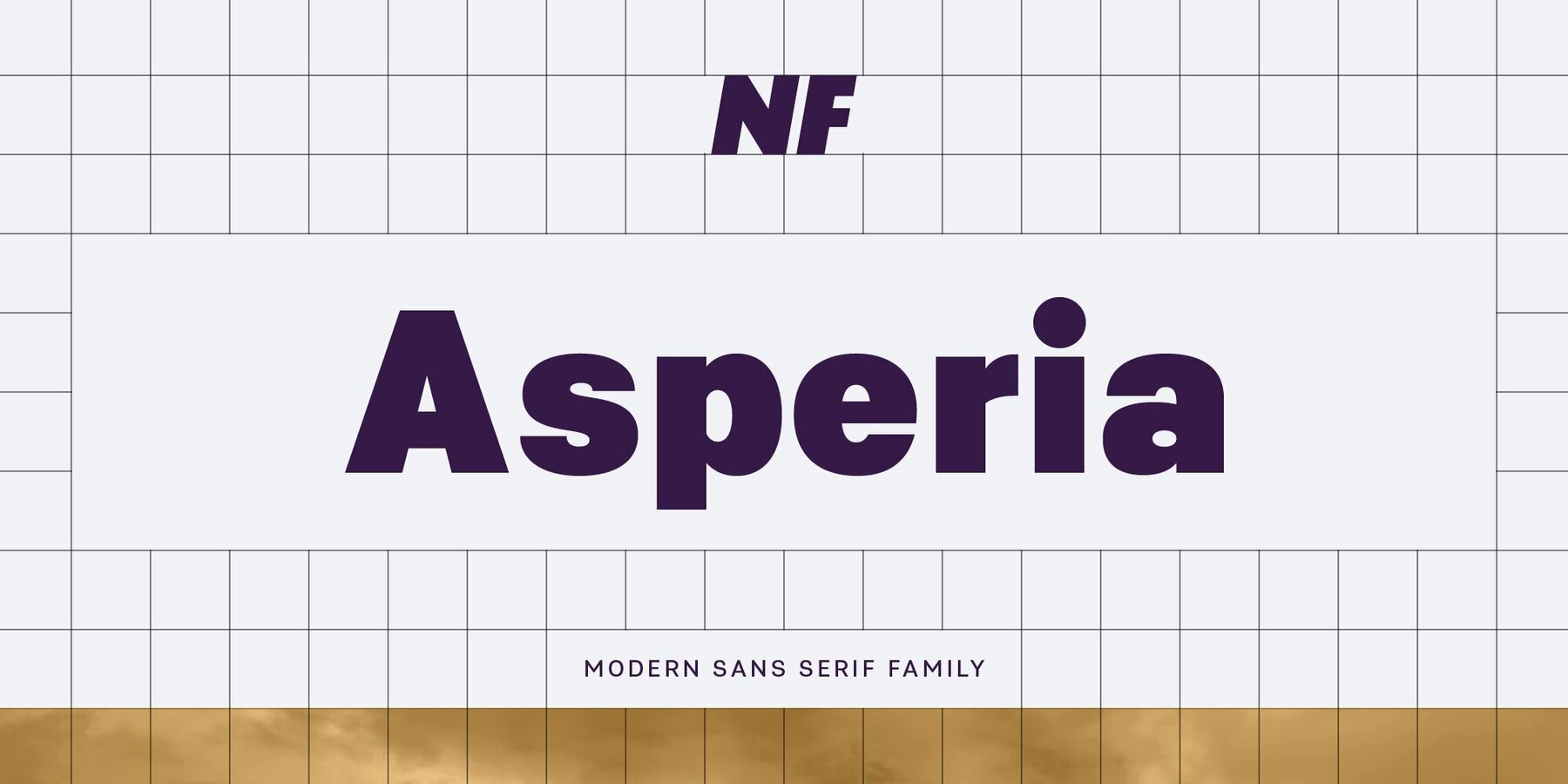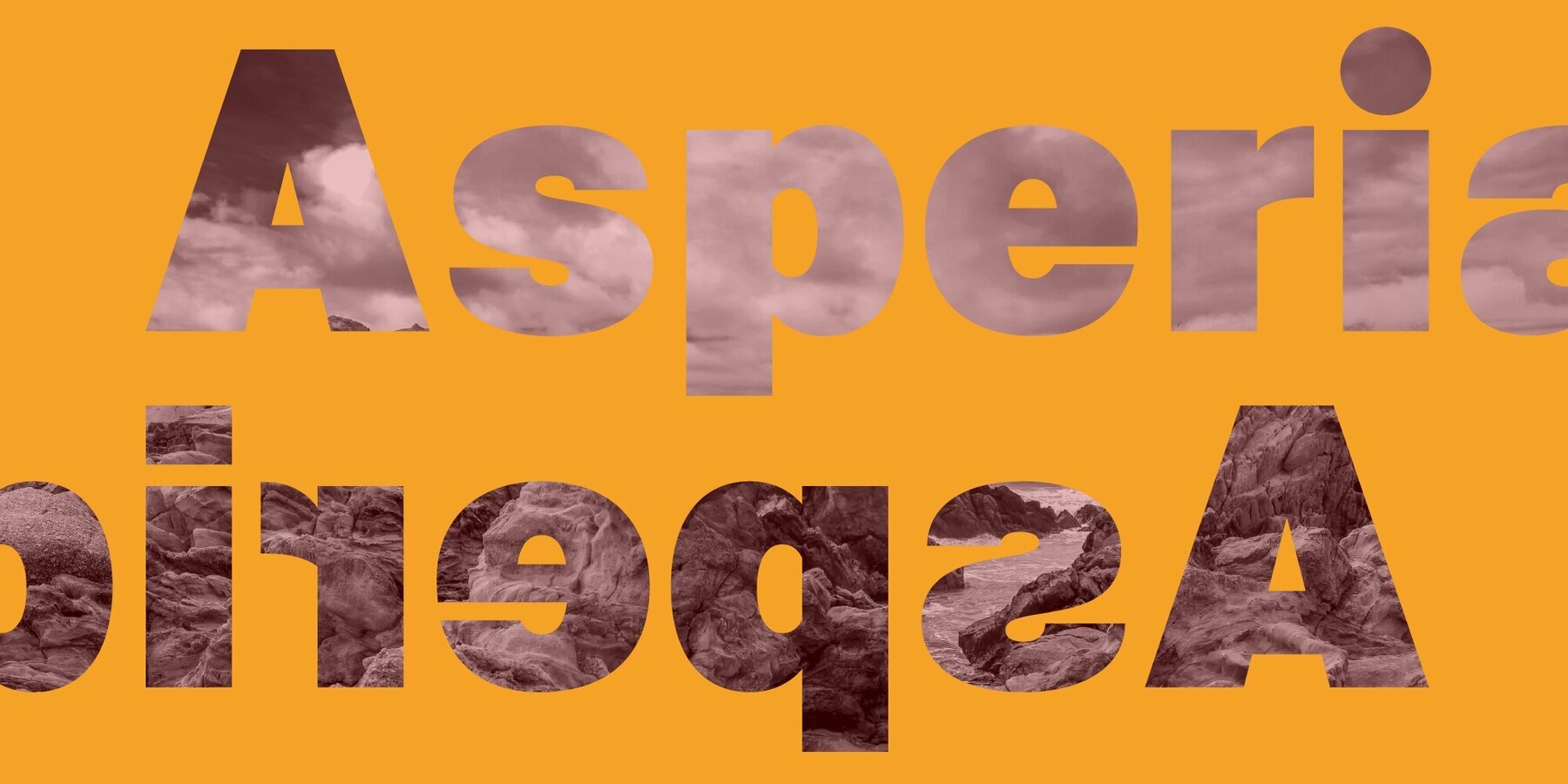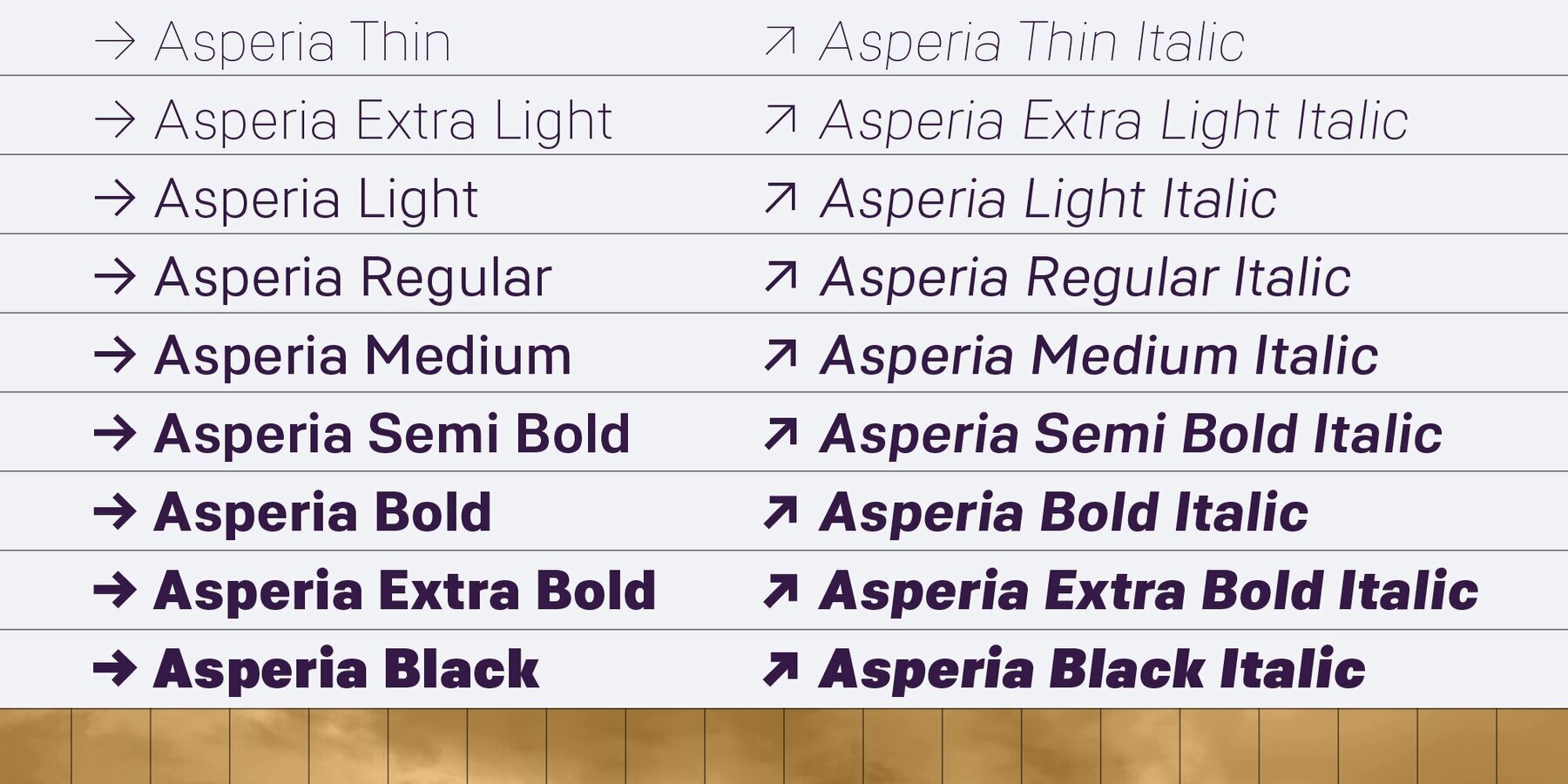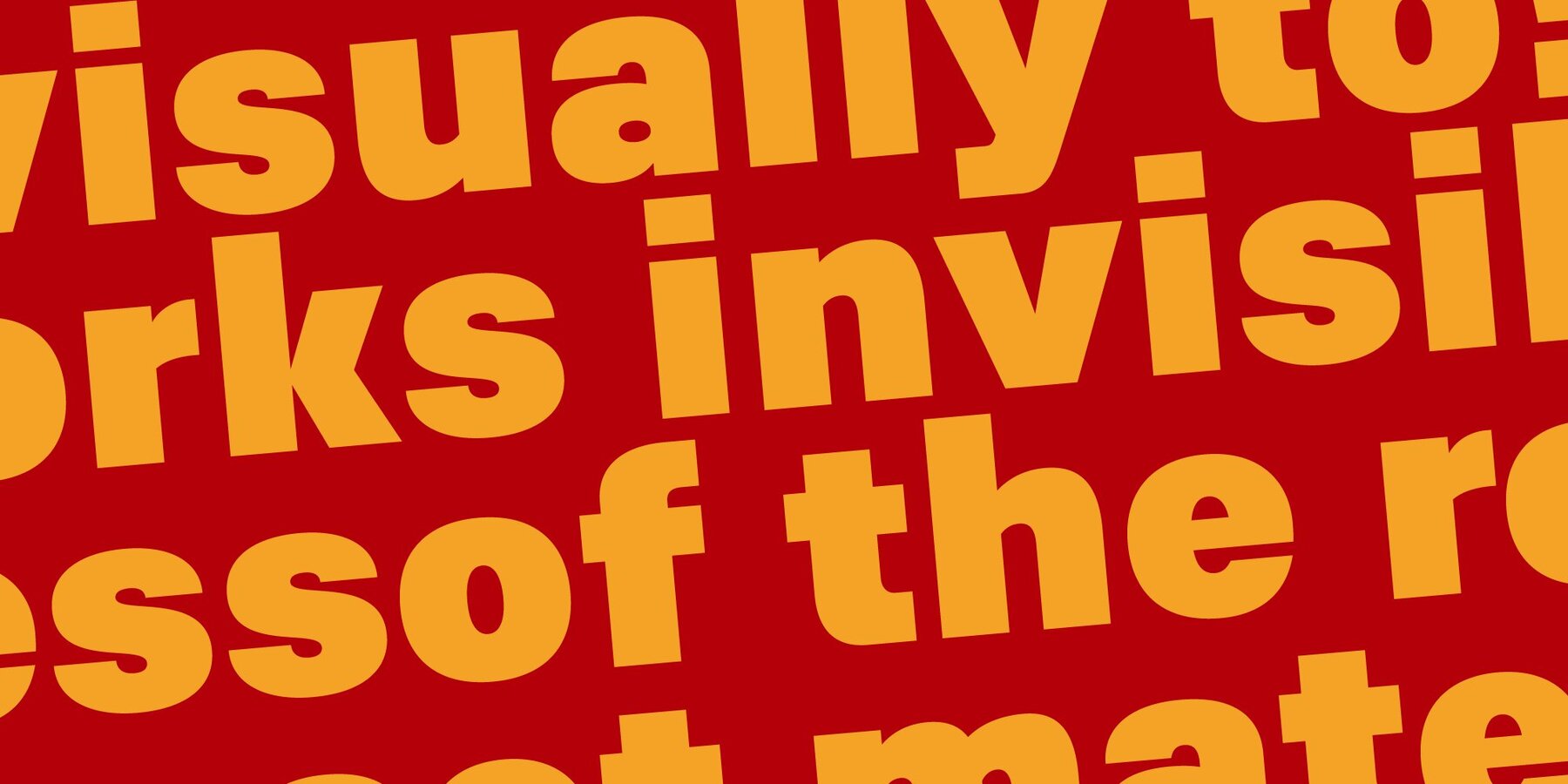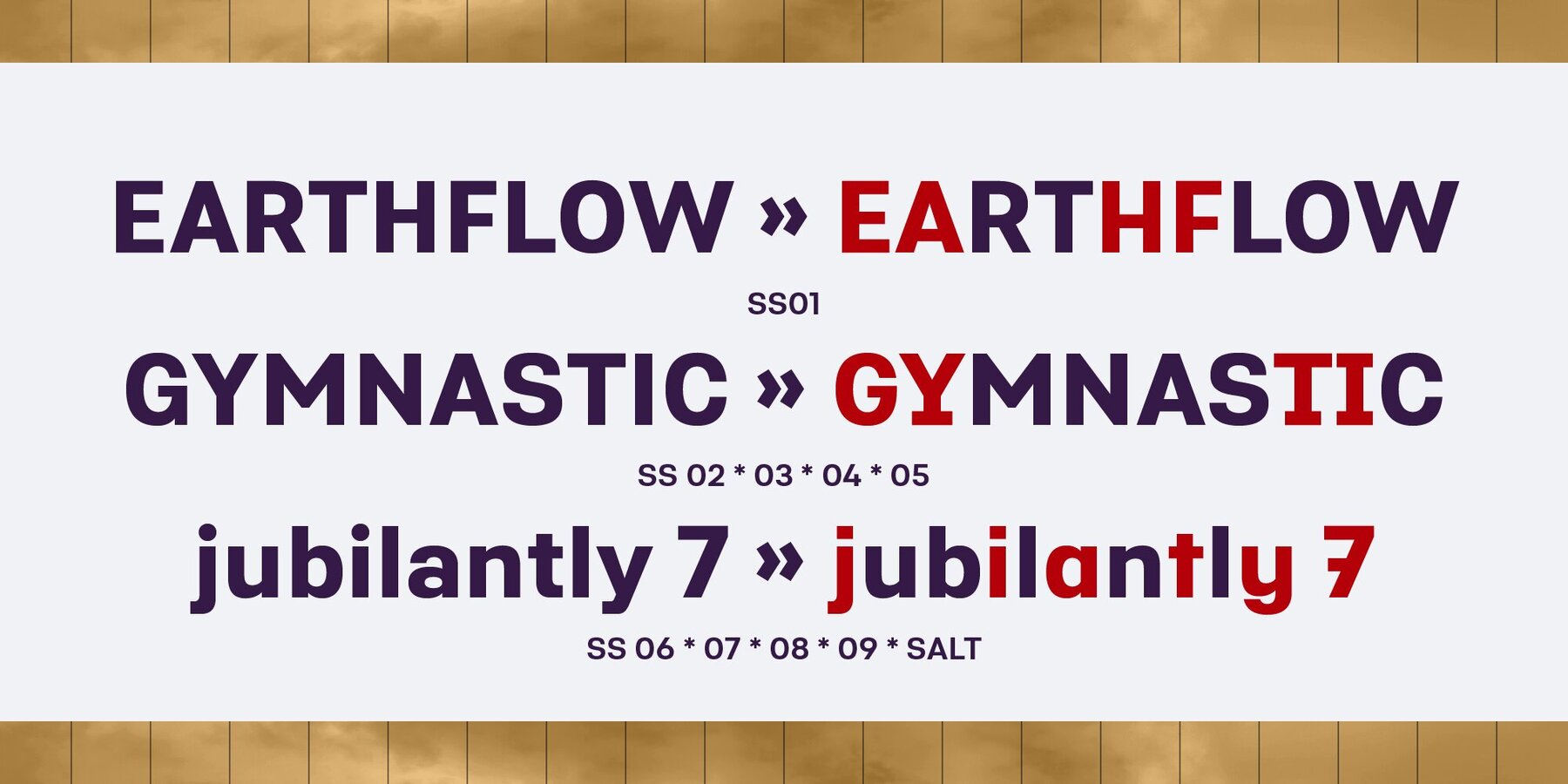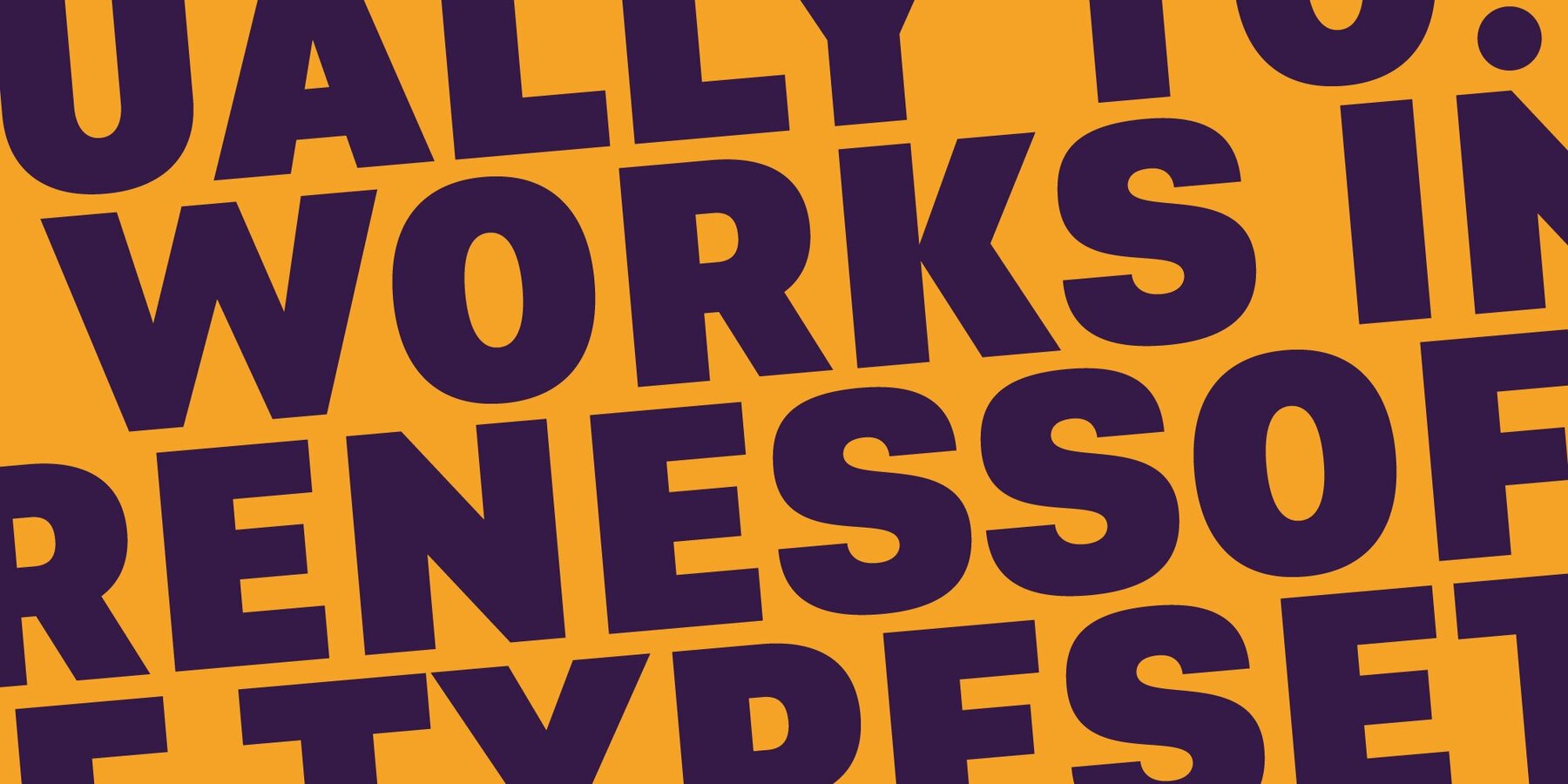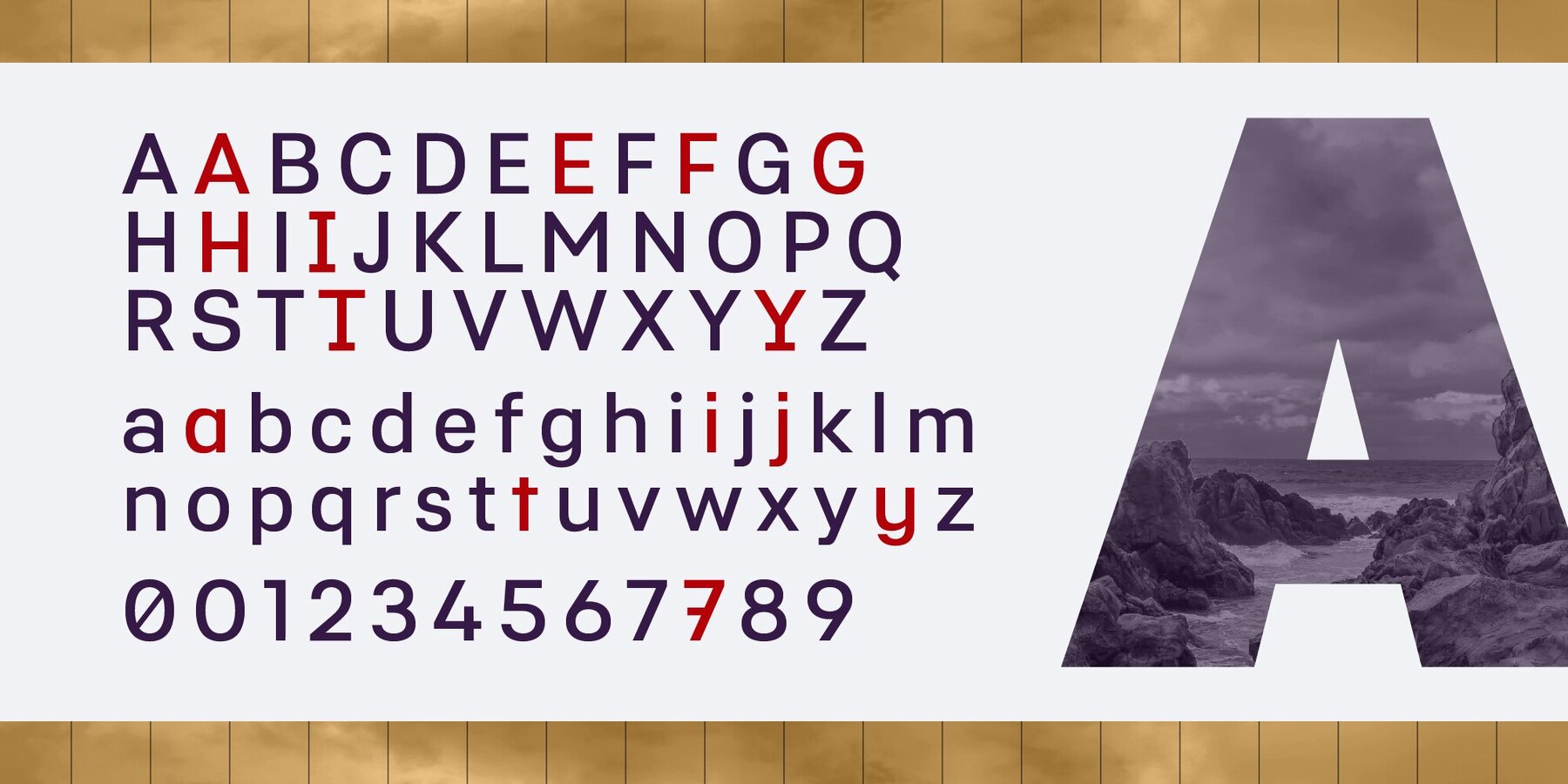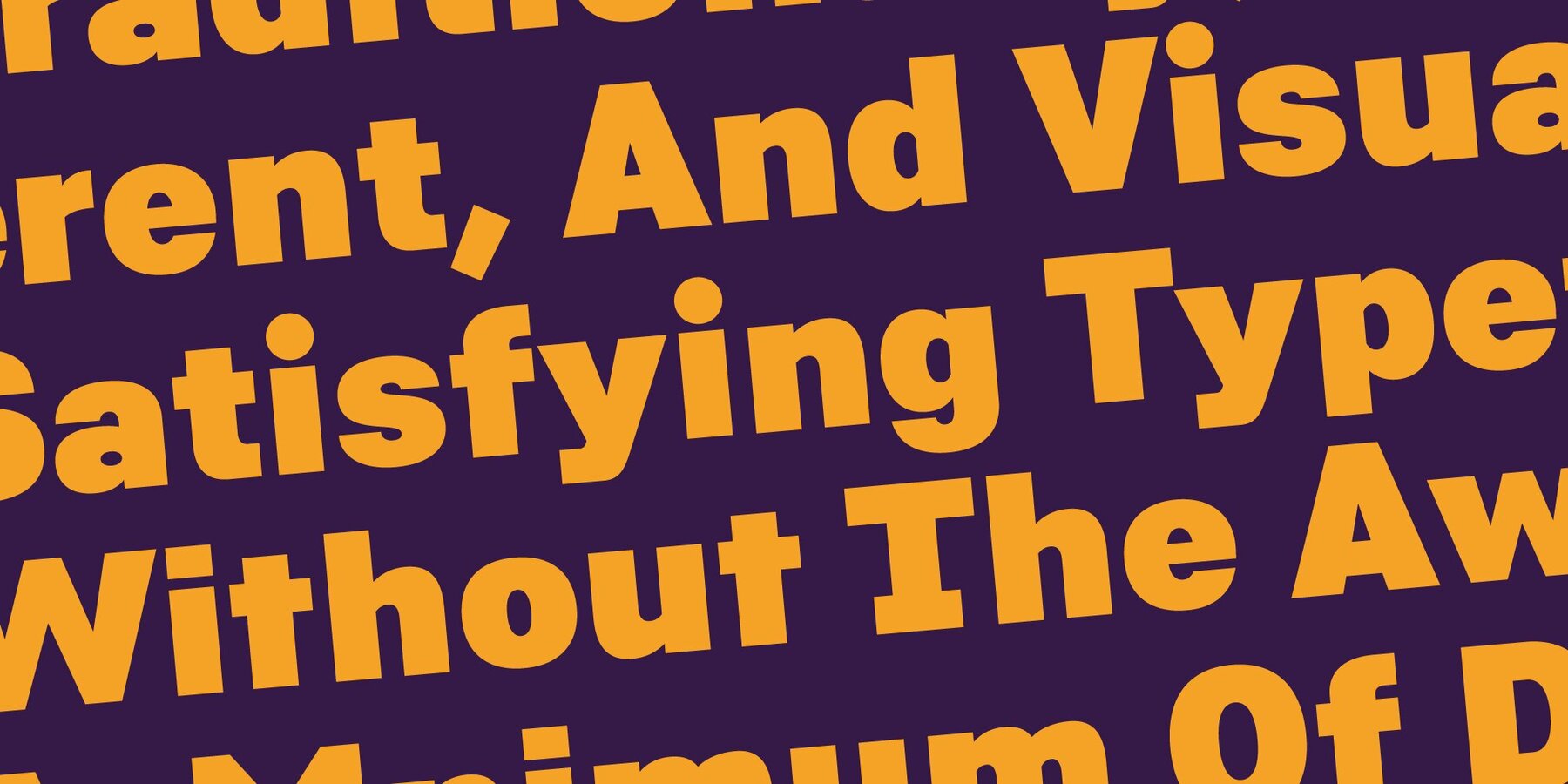
Asperia Font
Asperia distinguishes itself as a contemporary sans serif font, offering an impressive breadth of versatility with 18 weights. It ranges from Thin to Black, encompassing 9 uprights and their corresponding italics. Each weight is meticulously crafted to ensure legibility and impact, whether in small text sizes or commanding headlines. Asperia's comprehensive design features over 700 glyphs, supporting an extensive array of OpenType features that cater to diverse typographic needs. Asperia is ideally suited for a diverse range of applications, from branding and editorial layouts to corporate identities, wayfinding, and digital interfaces. It offers a harmonious, contemporary voice along with a wealth of typographic options, ensuring it stands as a valuable asset in any design project.Asperia: Modern Sans Serif with Versatile Weights
OpenType Features
Savchuk Mykola began his career as a graphic designer. Over time, he had a desire to create a font that would reflect his view of typography. ‘They say that all ingenious things are simple, although unique. In my future projects, I want to reflect simplicity on the one hand and uniqueness on the other, providi...